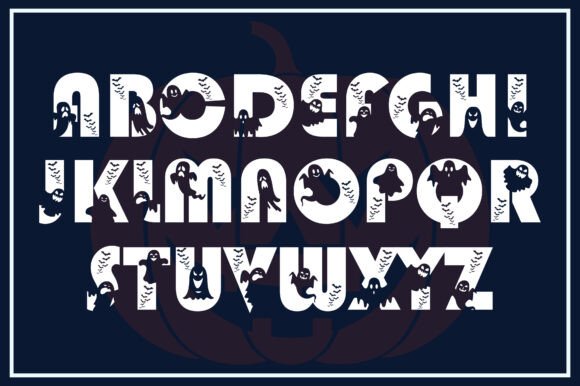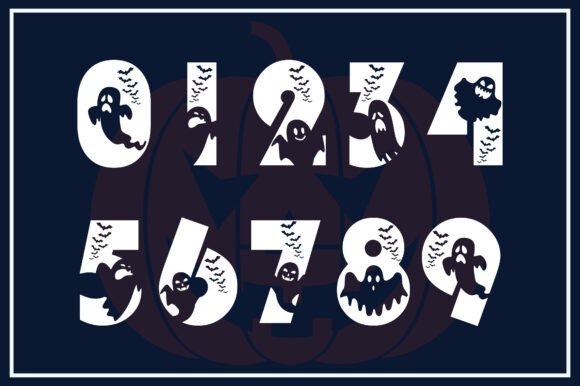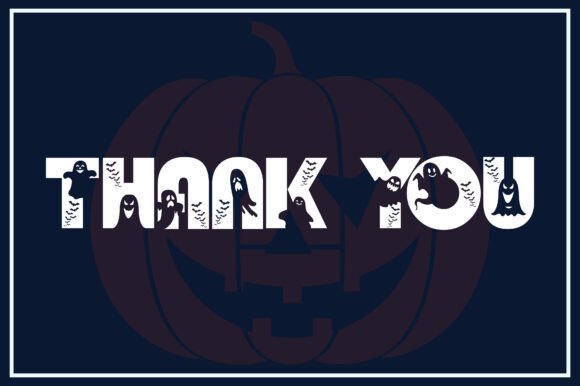
Get Ready for a Spooky Good Time with the Ghost Halloween Font
It’s that time of the year when creativity knows no bounds and imagination runs wild. You’re browsing through a craft store, and the perfect combination of colors and decorations catches your eye. You can almost hear the whispers of the Halloween spirit, guiding you to create something truly magical. This is the moment when the right font can make all the difference.
Enter the Ghost Halloween Font, a delightful and dynamic display font designed to add a touch of whimsy to your projects. Perfect for any design or crafty idea, this font is sure to bring a smile to your face and a thrill to your creative process. With its versatility and playfulness, the Ghost Halloween Font is a valuable addition to any designer’s toolkit.
Ghost Halloween Font Key Features
- Font Family: A unique, spooky-themed font designed specifically for Halloween and horror-themed applications.
- Unique Characteristics: Features a hauntingly eerie aesthetic, with intricate details and textures that evoke a spooky atmosphere.
Ghost Halloween Font Review
✨ I have to say, I was really excited to dive into the Ghost Halloween Font. At first glance, the design is spooky yet elegant, with a perfect blend of modern and classic elements. The font is well-suited for any Halloween-themed project, from spooky invitations to haunted house decorations. The subtle ghostly theme adds a touch of sophistication, making it stand out from more basic Halloween fonts.
✨ One of the standout features of the Ghost Halloween Font is its versatility. It works well for both digital and print projects, and can be used for a wide range of applications, from web design to graphic design. The font is also highly customizable, with a variety of styles and sizes to choose from.
- Perfect blend of modern and classic elements
- Well-suited for Halloween-themed projects
- Works well for both digital and print projects
The Ghost Halloween Font is a great addition to any designer’s toolkit, especially for projects that require a spooky yet elegant touch. While it may have a few limitations, the font’s versatility and customization options make it a great choice for designers looking to create unique and eye-catching designs.
The ‘Ghost Halloween Font’ is perfect for creating spooky designs for Halloween, such as invitations, posters, and social media graphics. It’s also great for creating creepy typography, tombstone designs, and other spooky graphics. Experiment with different font sizes, colors, and italics to create a haunting effect.